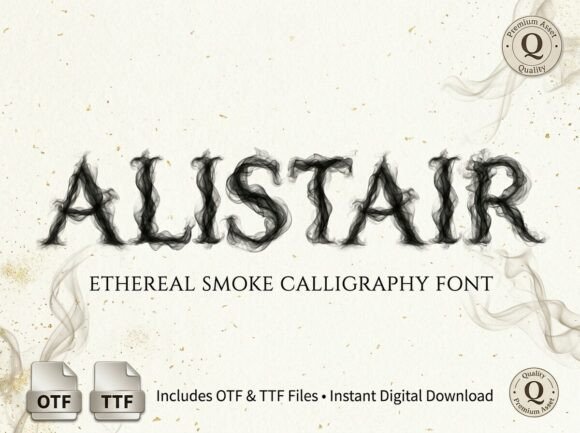
Unleash the Mystery with Alistair Font Have you ever stared at a blank canvas, trying to conjure the perfect design concept, only to have it slip away like smoke in the wind? That’s exactly the feeling Alistair Font is designed to evoke – an ethereal, elusive quality that will leave your audience mesmerized. 📸 Preview…